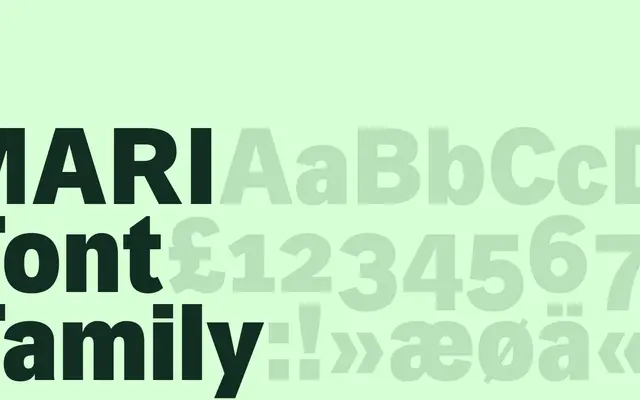
A serif from Playtype whose sparse page offers little beyond an evocative literary vignette as its sole specimen.
Mari is a typeface from Copenhagen foundry Playtype, introduced through a brief literary fragment rather than technical detail. The page copy reads as a character study, which may signal an intended tone for editorial or literary applications. Without weight or style information publicly listed, the family's full scope remains unclear.
The page content is too sparse to determine precise classification, but the tone and Playtype's editorial focus suggest a text-oriented serif; defaulting to transitional serif pending further detail.